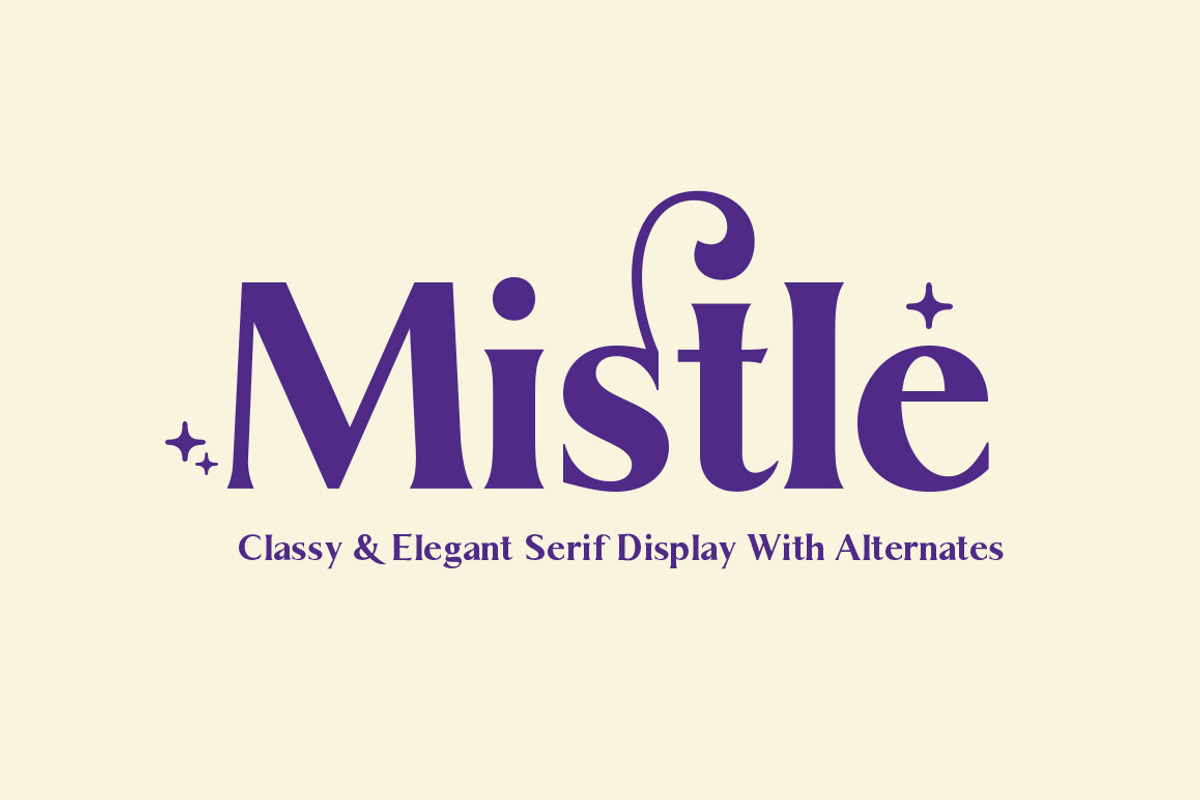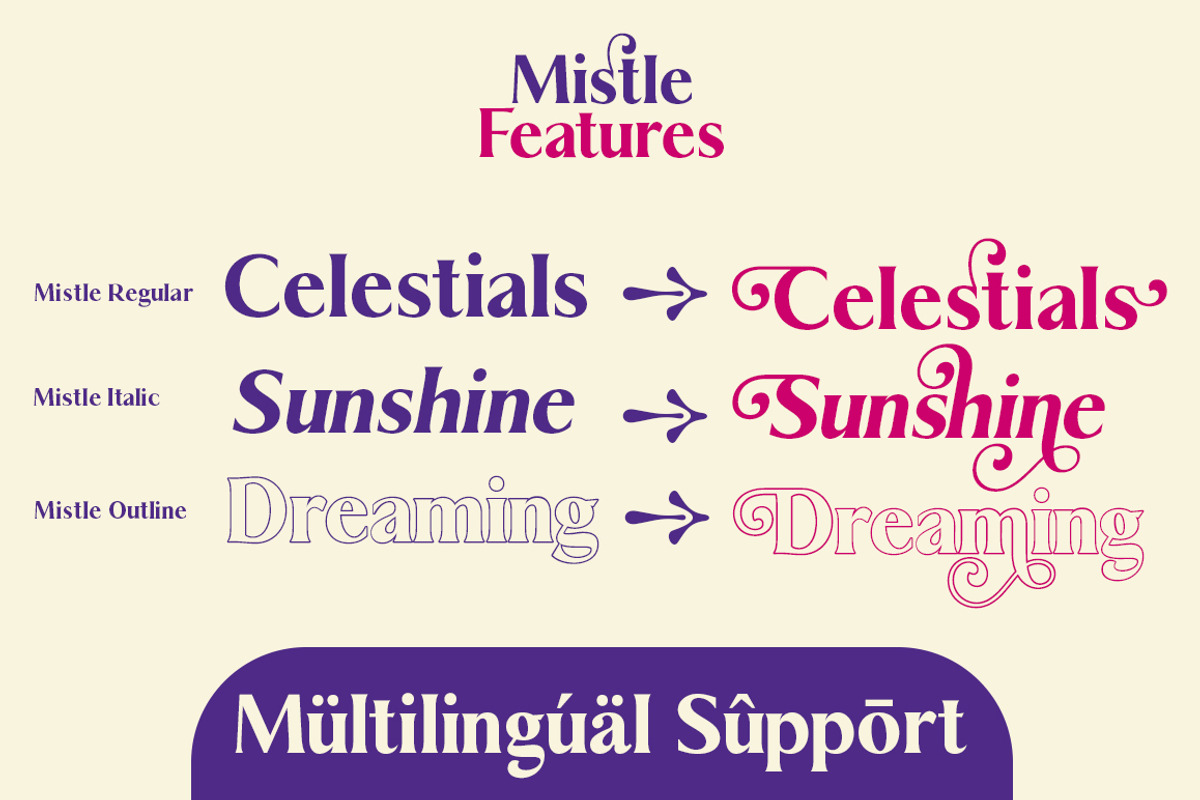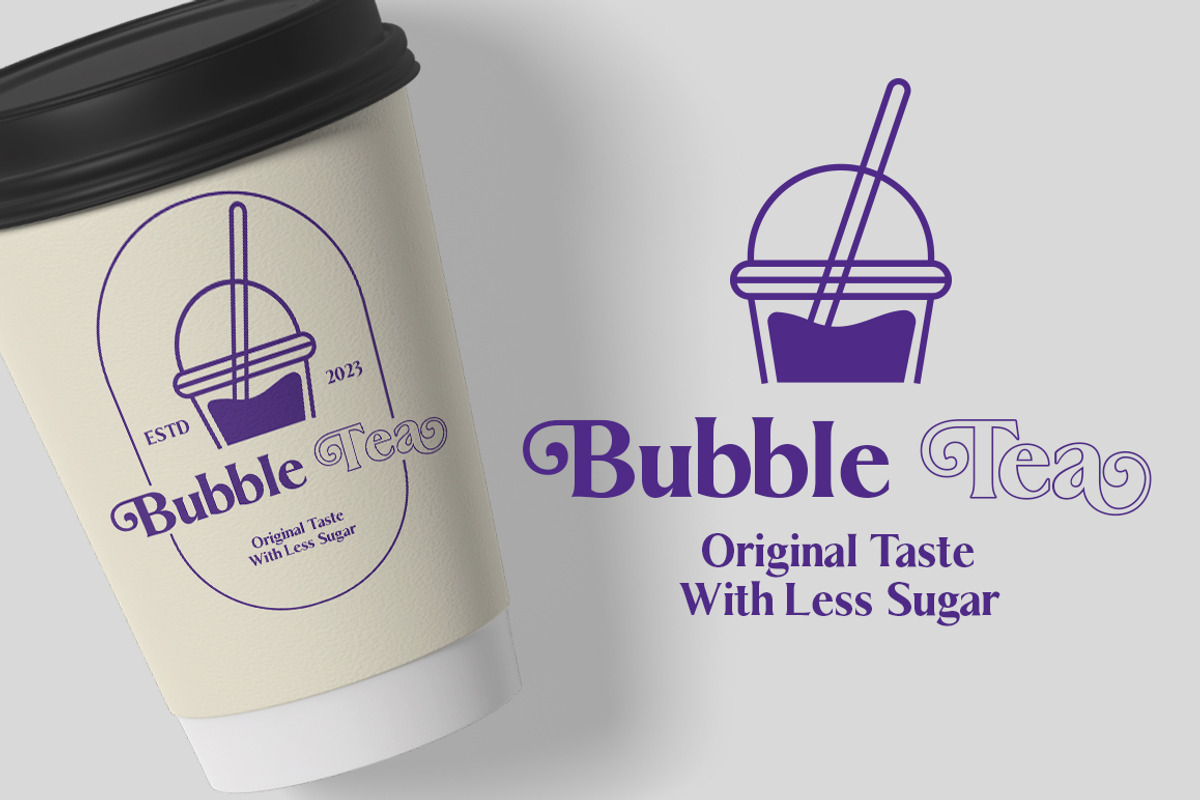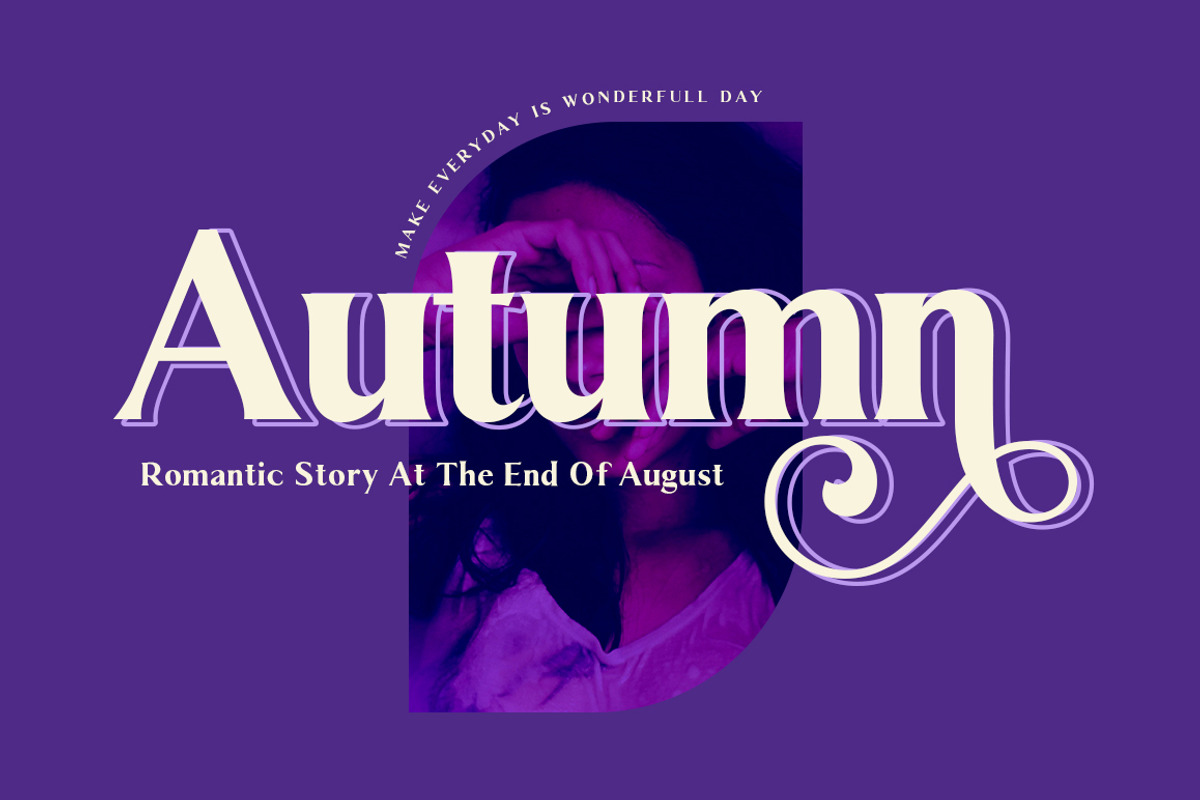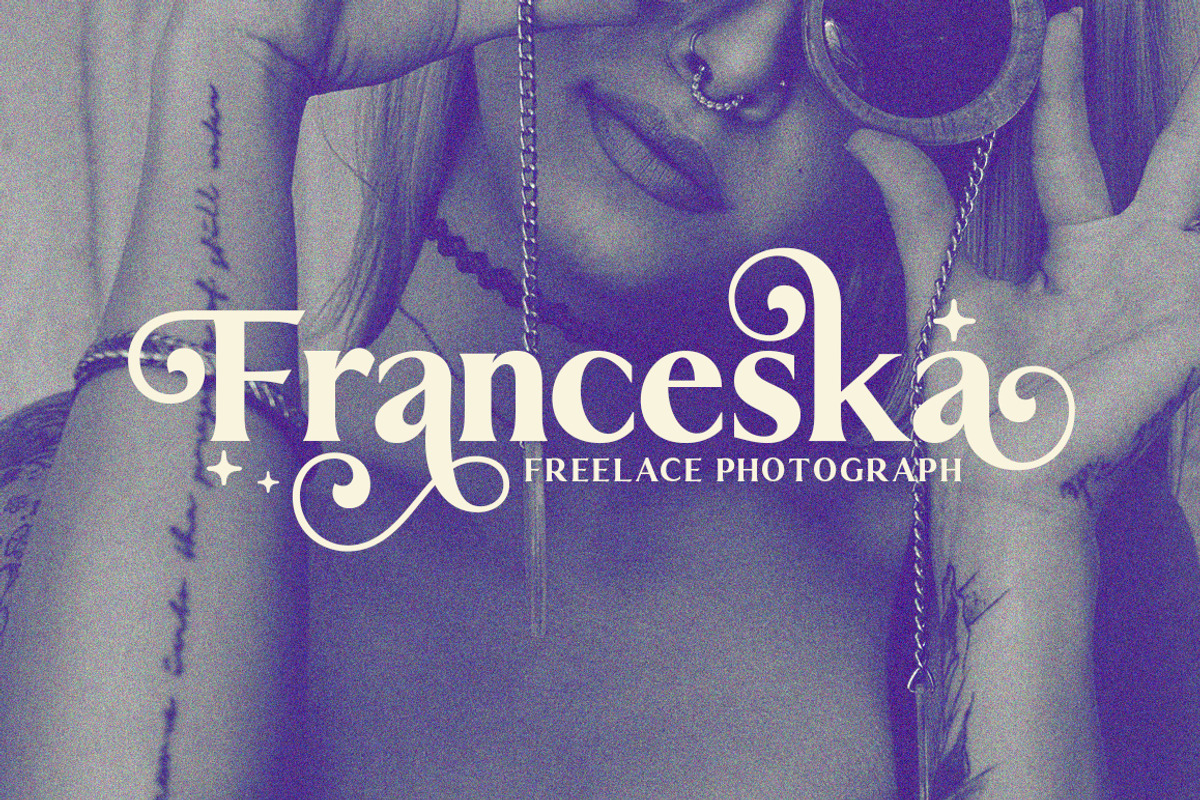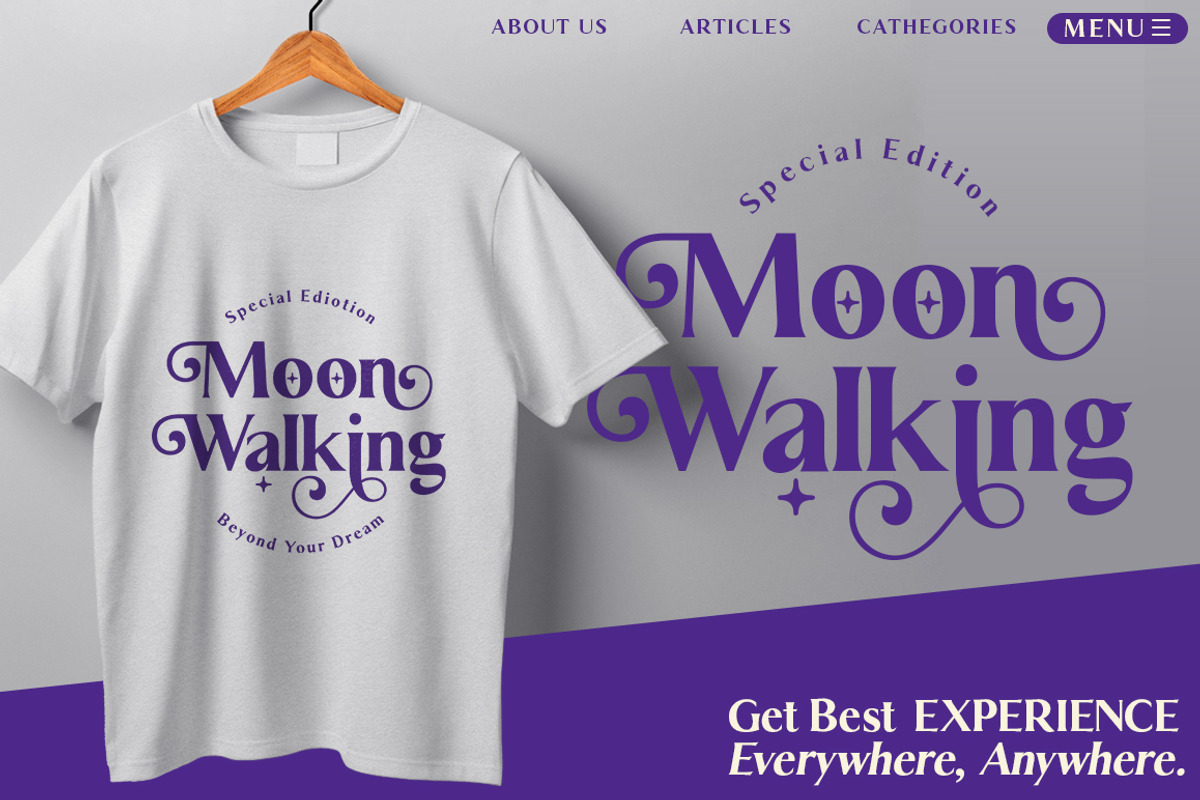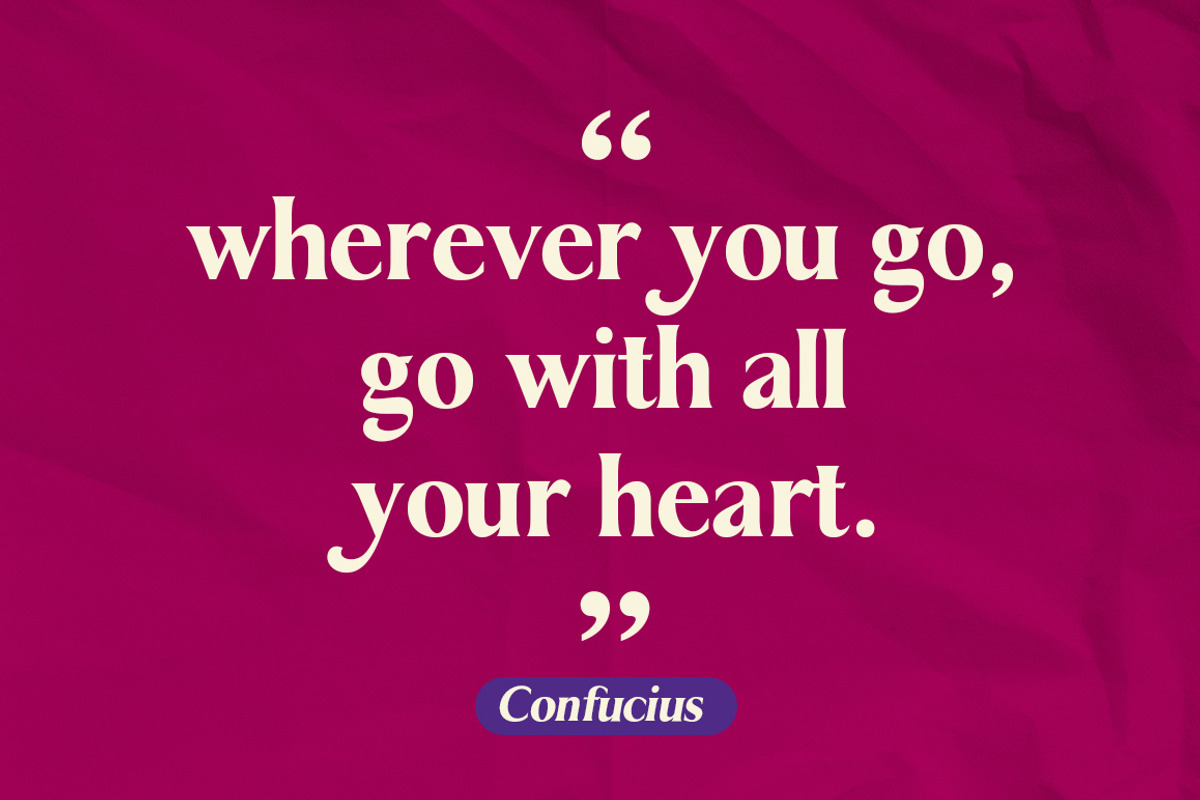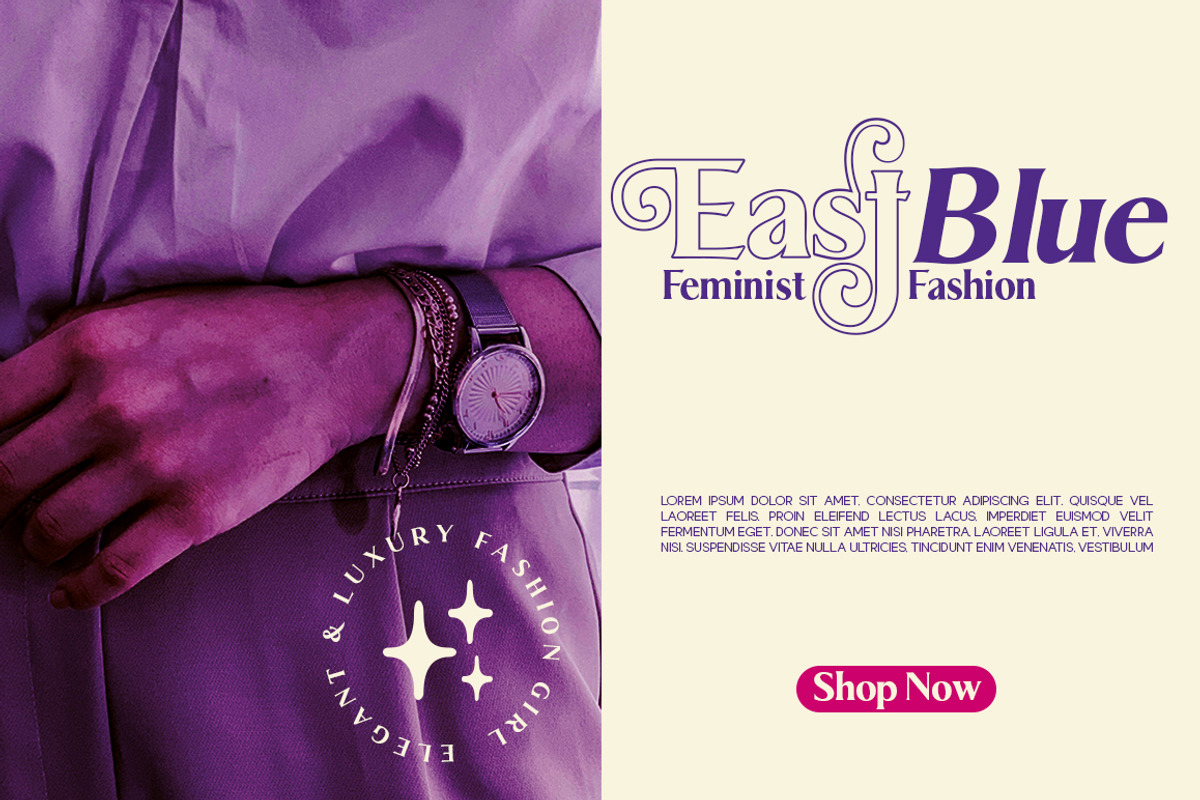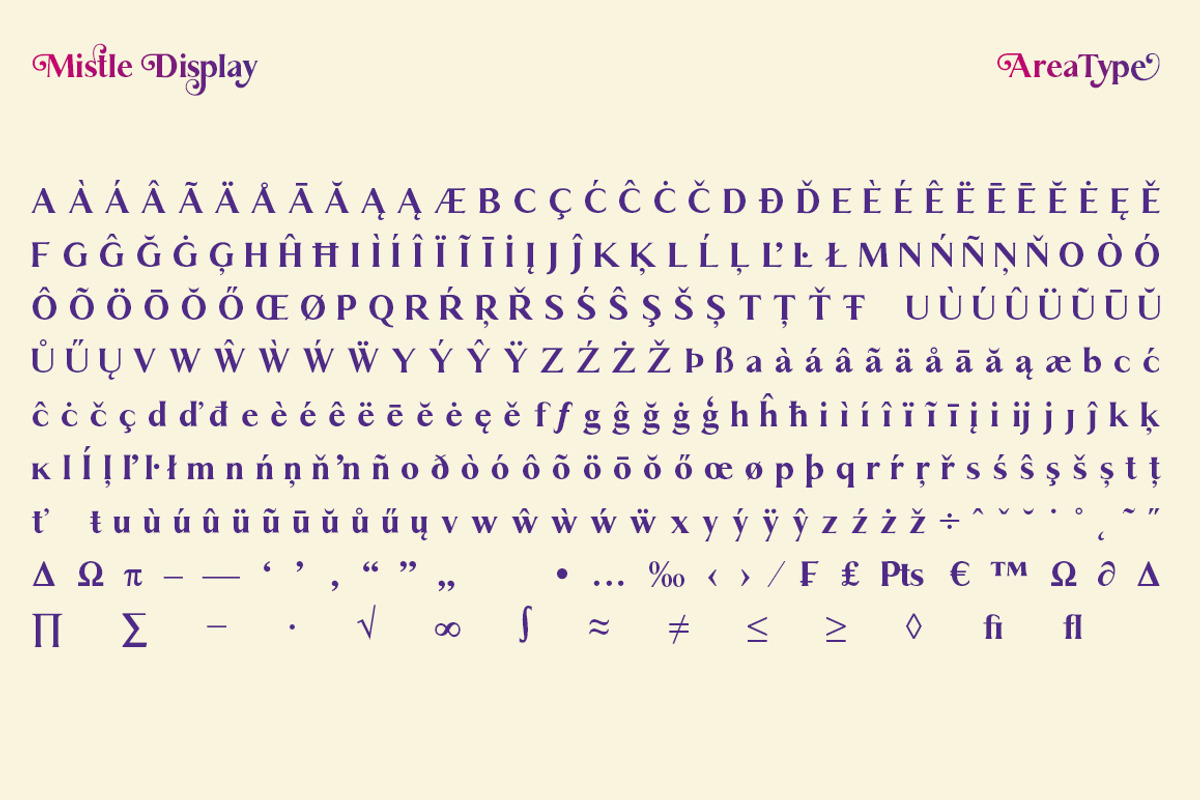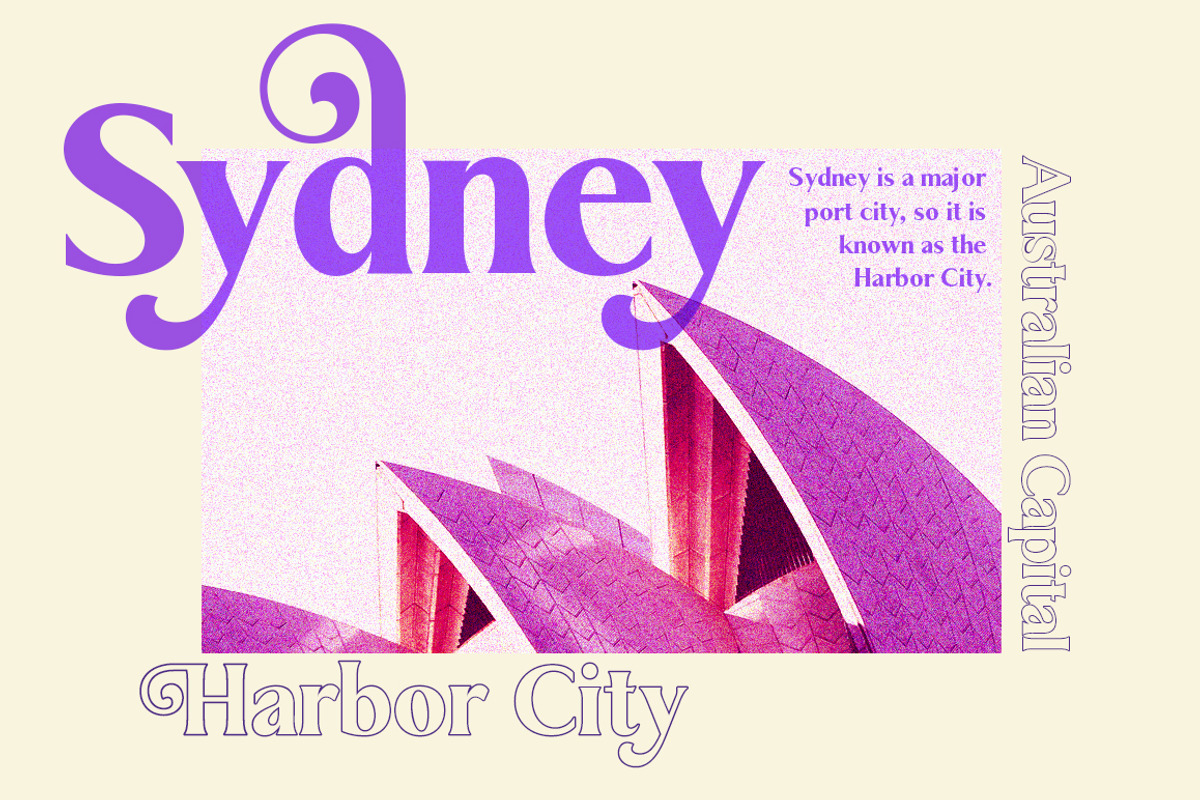
Mistle | A Classic Sans
Mistle is a very versatile font. perfect for magazine images, to wedding invitations, to branding, poster design, and more.
- Stylistic Alternates & Ligatures
OpenType features allow for the implementation of typographic such as ligatures and multiple language support.